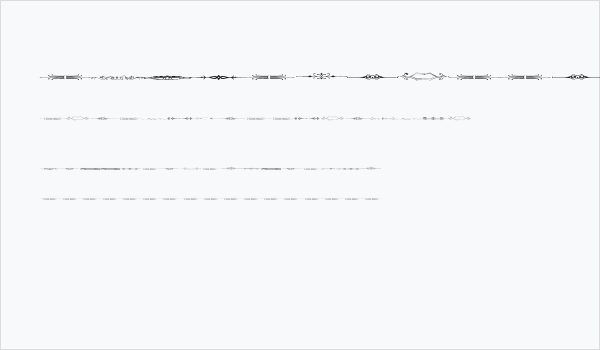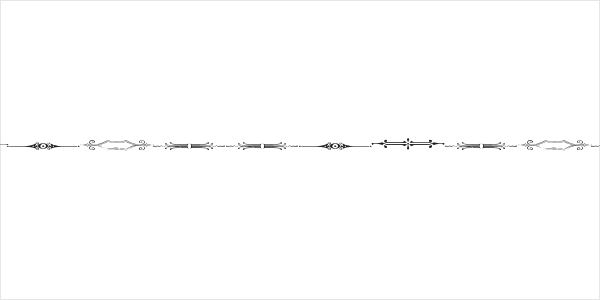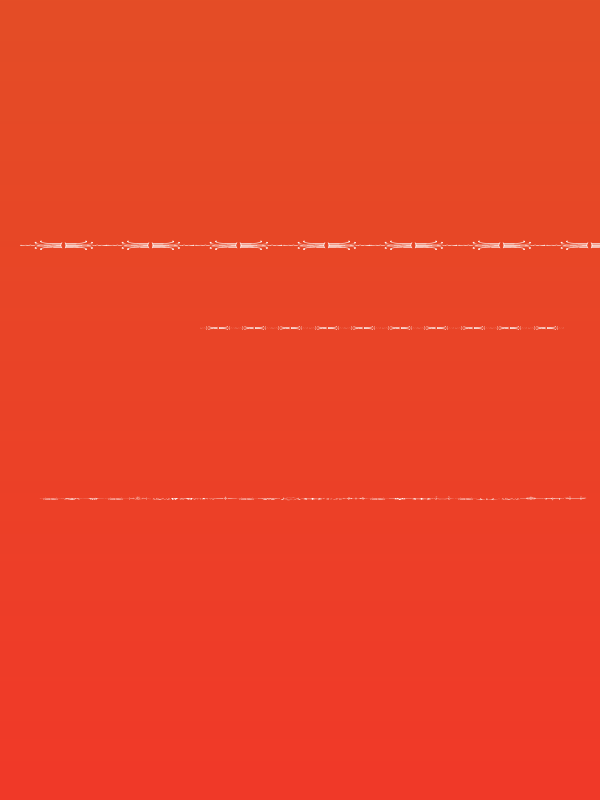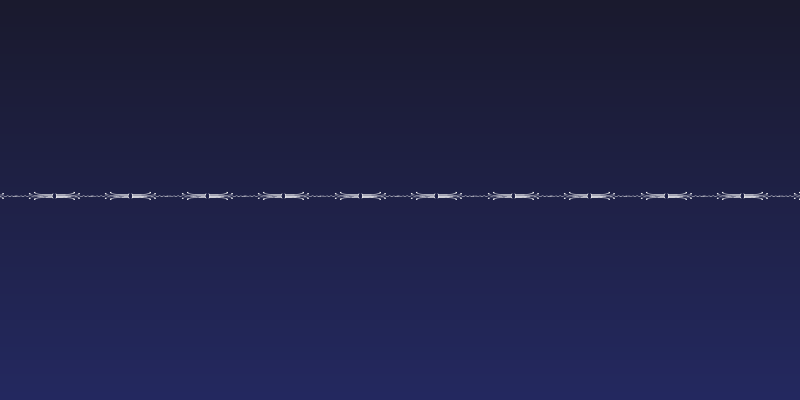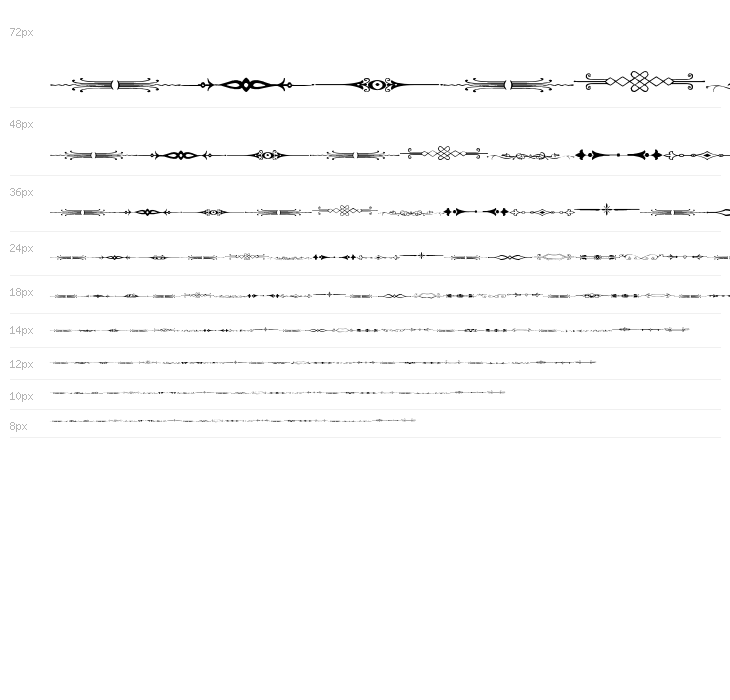
Sughayer Separates 8 Font
Sughayer Separates 8 Description
A collection of ornate, decorative horizontal line separators featuring intricate geometric and floral motifs, with varying levels of detail and thickness, designed for embellishing documents or digital layouts.
| Overall Style | Vintage, Decorative |
| Use Case | Dividers, Borders, Decorative accents |
| Proposed Projects | Invitations, certificates, vintage-themed designs, book chapter dividers, digital scrapbooking, decorative web elements. |